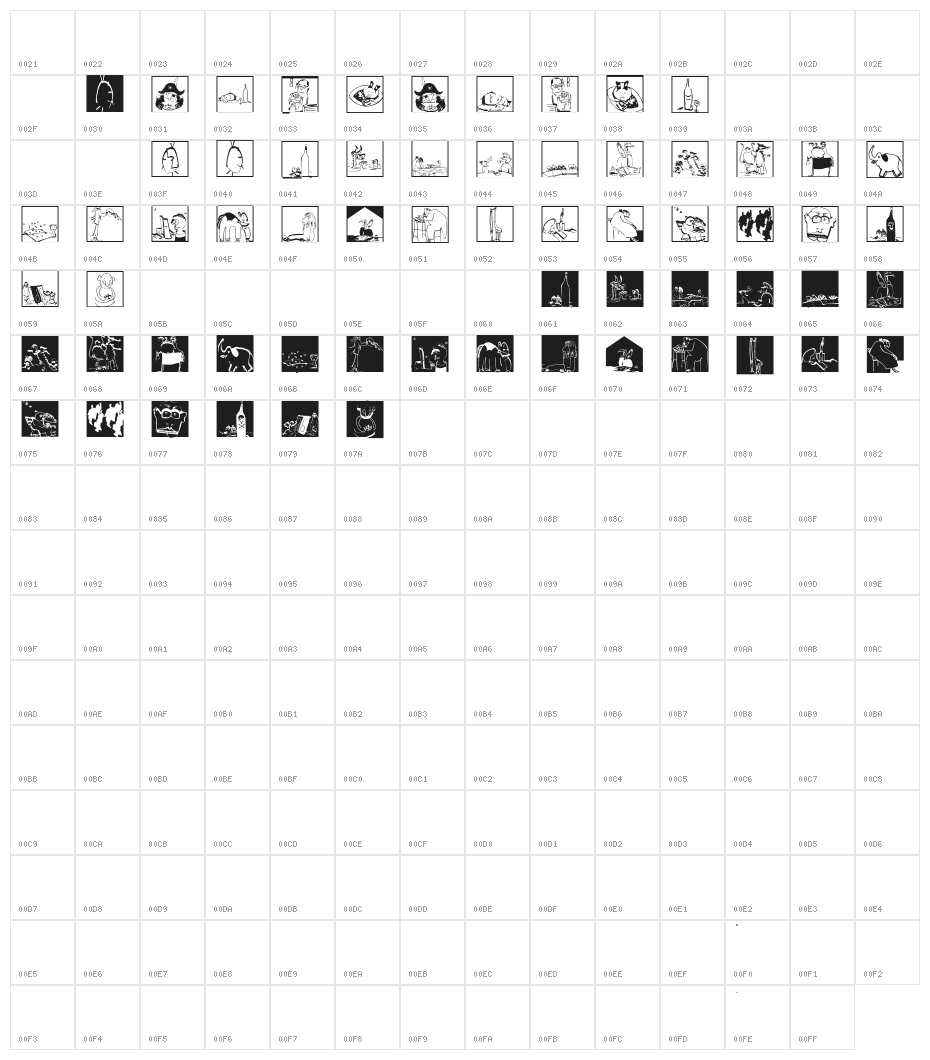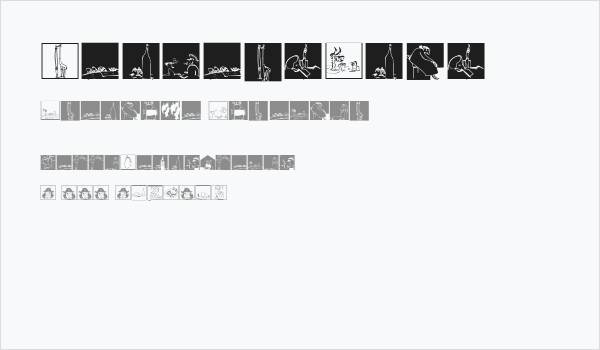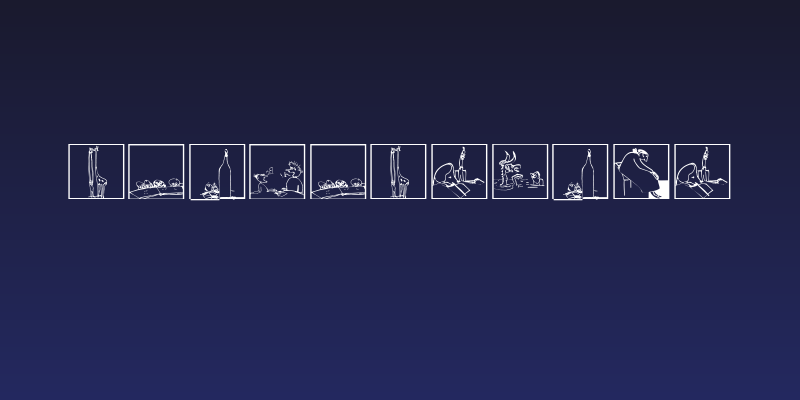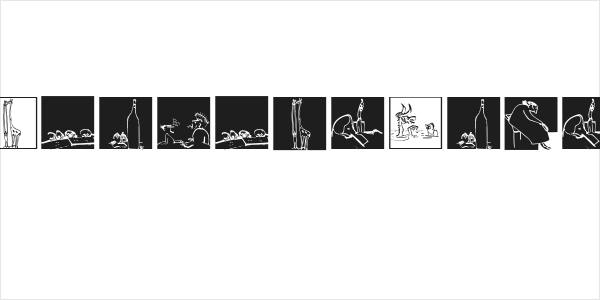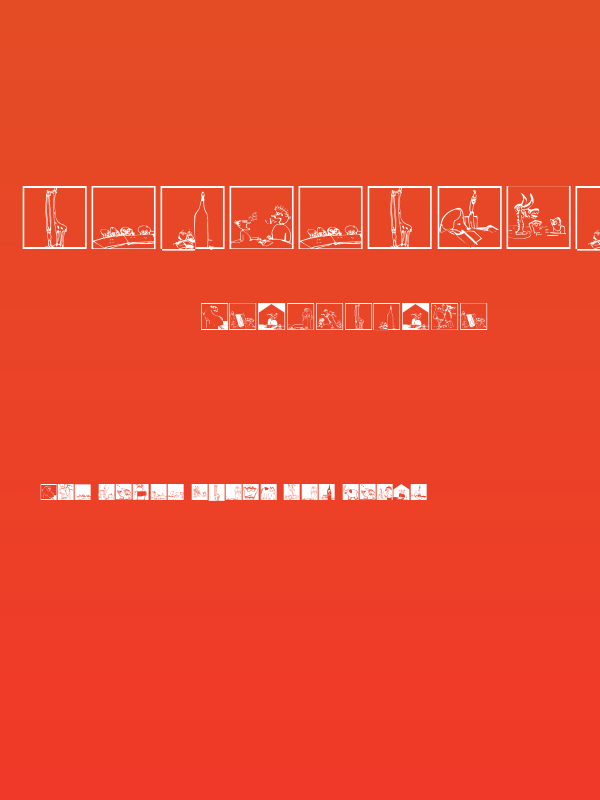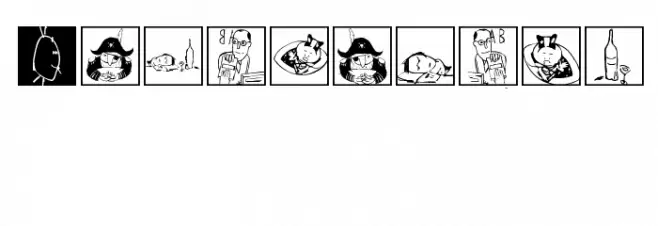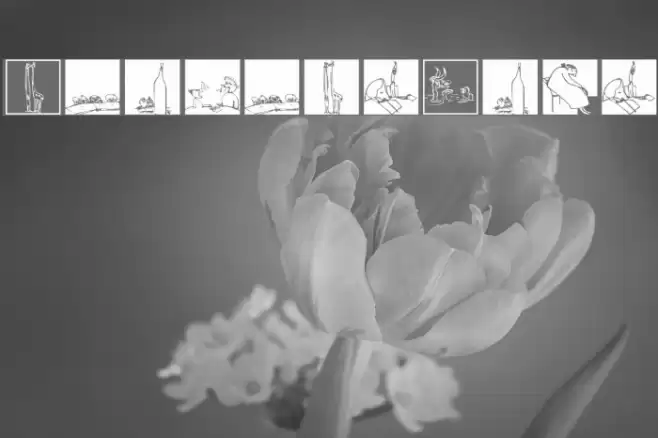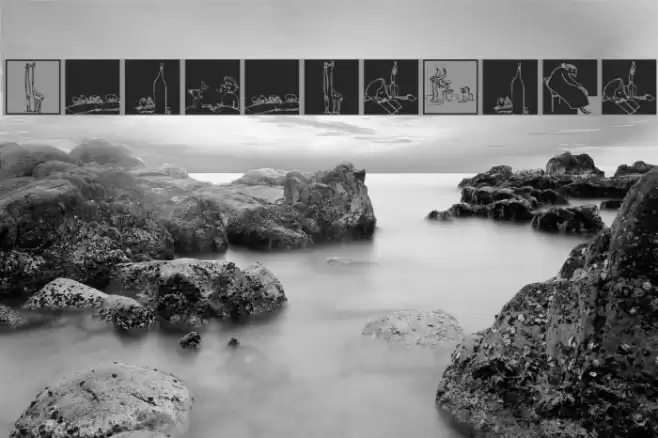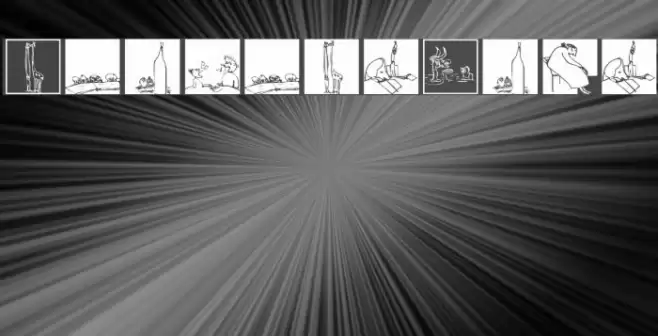
ReadersBats Font
ReadersBats Description
This set of images features whimsical and humorous illustrations, each depicting a unique scene or character. The illustrations are cartoonish, with a playful and imaginative style. The characters include animals, people, and various objects, each drawn with a sense of humor and creativity. The images are black and white, with bold outlines and minimal shading, giving them a clean and striking appearance. The scenes range from everyday activities to fantastical scenarios, each capturing a moment of lightheartedness and fun.
| Overall Style | Whimsical and playful |
| Use Case | Decorative elements, children's books, comic strips |
| Proposed Projects | These illustrations could be used in children's books, comic strips, greeting cards, or as decorative elements in playful design projects. |